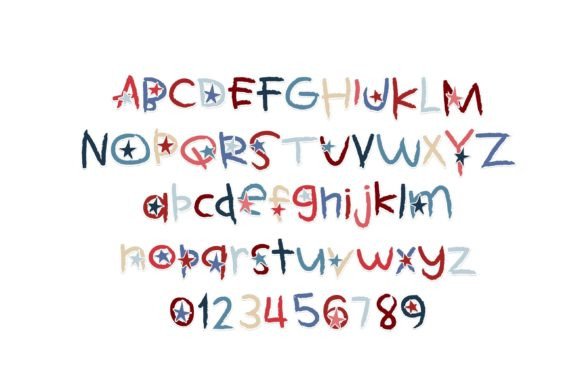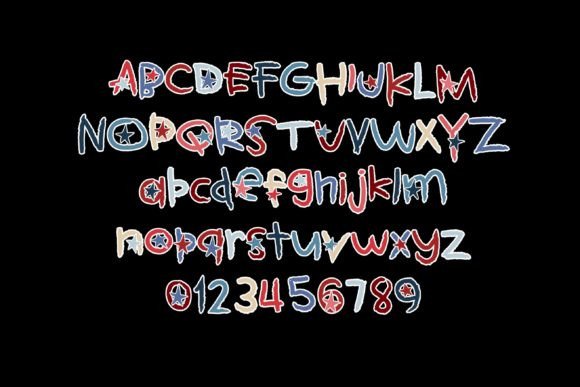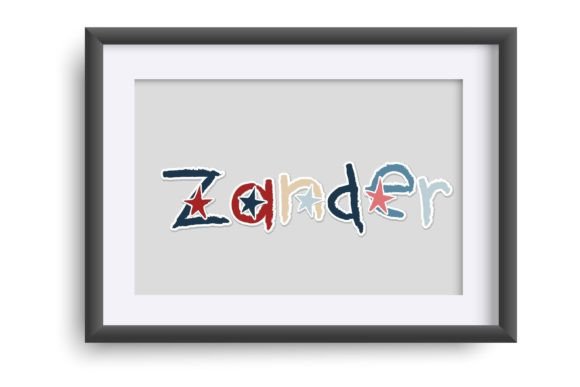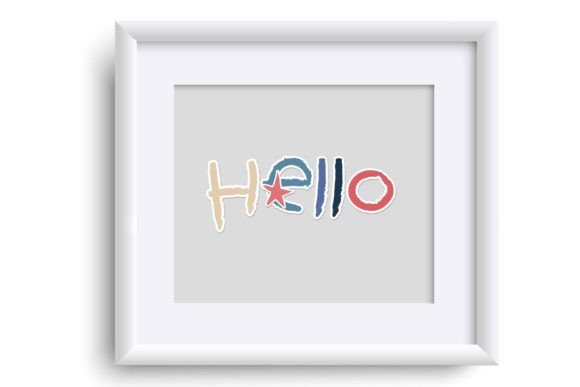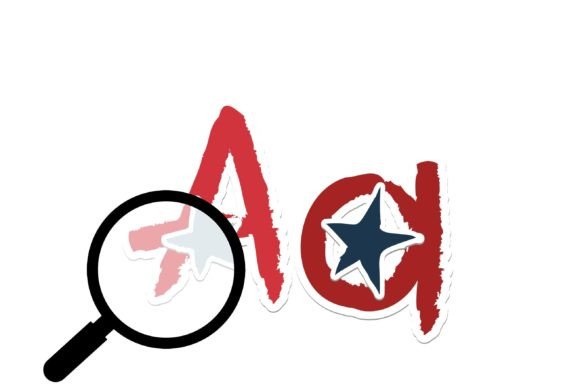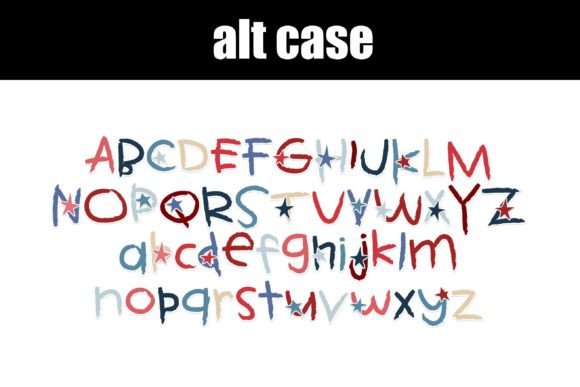
Introduction to Kids Usa Font
This full-color font features whimsical lettering with a red, white and blue color palette.
There is an alt version you can access through your systemโs character map that contains additional colors of all the letters OpenType full-color (SVG) fonts are installed like any normal .